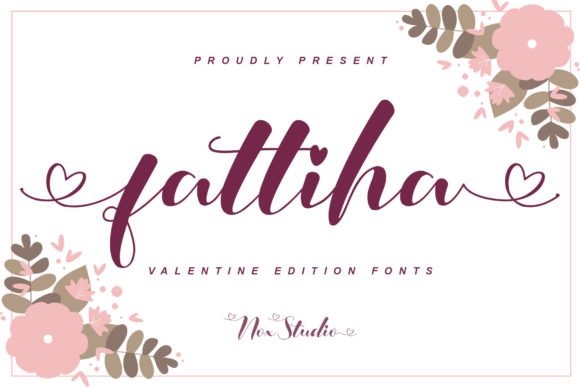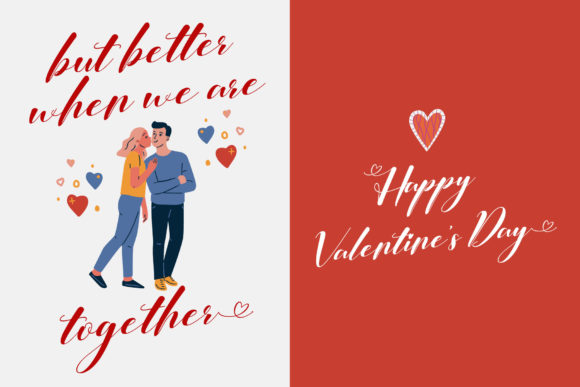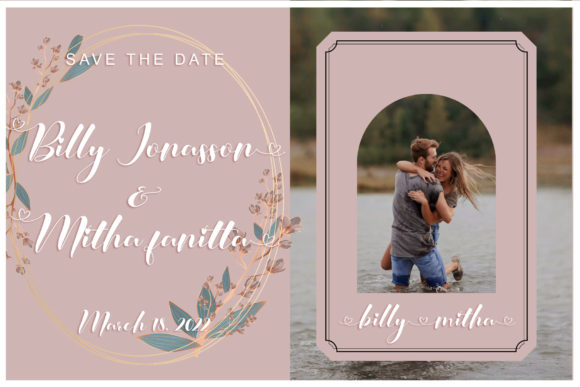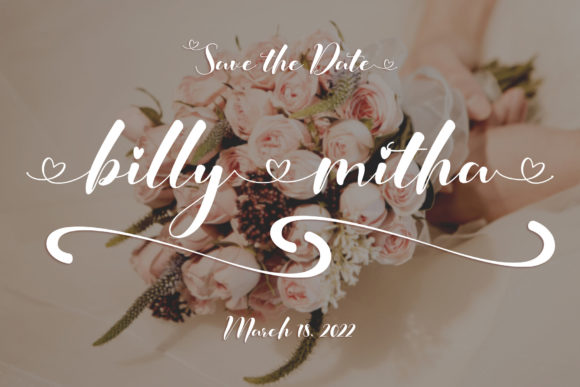
Discover the Magic of Fattiha Font
As designers, we’ve all been there – staring at a blank page, waiting for the perfect font to bring our vision to life. And then, it happens. A spark of inspiration strikes, and you know exactly what you need to make your design truly shine. For me, that moment came when I discovered Fattiha Font – a romantic and sweet script calligraphy font that adds a luxury touch to any project.
Fattiha Font is more than just a font – it’s an experience. Its elegant characters dance along the baseline, creating a sense of movement and energy that’s impossible to ignore. Whether you’re designing a wedding invitation, a luxury brand logo, or a beautiful piece of typography, Fattiha Font is the perfect addition to elevate your design to the next level.
Fattiha Font Key Features
- Font Family: Fattiha Font is a unique and elegant script font family designed to add a touch of sophistication to any design.
- Character Set: Includes a comprehensive set of characters, including Latin, Cyrillic, and Arabic scripts, making it suitable for multilingual designs.
- Unique Characteristics: Fattiha Font features a distinctive, flowing script style with intricate details and ornate flourishes, making it perfect for adding a touch of elegance to invitations, wedding designs, and other special occasion graphics.
Fattiha Font Review
I recently had the chance to work with the Fattiha font, and I must say it’s a beautiful addition to any design project. ✨ The elegant, cursive script is reminiscent of classic Arabic calligraphy, making it perfect for cultural or literary-themed projects.
- ✨ The font’s flowing lines and organic feel add a touch of sophistication and whimsy to text-based designs.
- ✨ Fattiha font is highly legible, even at smaller font sizes, making it suitable for a wide range of applications, from print materials to digital interfaces.
- ✨ The font’s versatility allows it to work well in both modern and traditional design contexts.
However, I did encounter a few limitations. ⚠️ The font may not be the best choice for projects that require a high level of precision or sharpness, as its cursive script can make it difficult to achieve crisp lines.
Overall, I’m impressed with the Fattiha font’s unique aesthetic and versatility. While it may not be suitable for every project, it’s definitely a great addition to any designer’s toolkit. With its elegant script and high legibility, it’s sure to add a touch of sophistication to any design.
The Fattiha Font is suitable for:
- Islamic art and design
- Arabic calligraphy
- Formal business presentations
Alternatives to Fattiha Font
The Great Vibes Font is a beautiful, elegant script font that is perfect for creating a luxurious and sophisticated look. It is ideal for use in high-end branding, wedding invitations, and luxury product packaging.
Comparison to Fattiha Font: While Fattiha Font has a more modern and edgy feel, Great Vibes Font is more classic and elegant. Great Vibes Font is also more versatile and can be used for a wider range of applications.
The Alex Brush Font is a handwritten font that is perfect for creating a personal and intimate feel. It is ideal for use in stationery, greeting cards, and other personal correspondence.
Comparison to Fattiha Font: While Fattiha Font is more modern and bold, Alex Brush Font is more delicate and elegant. Alex Brush Font is also more suitable for personal and creative projects.